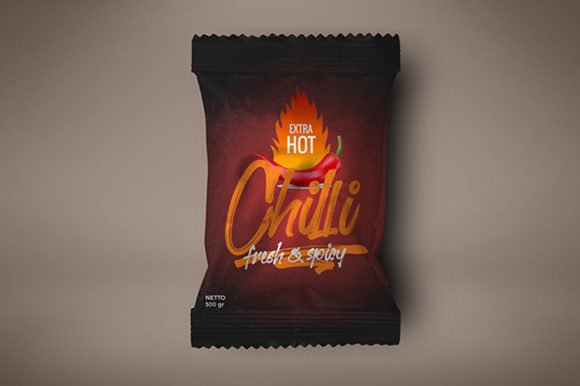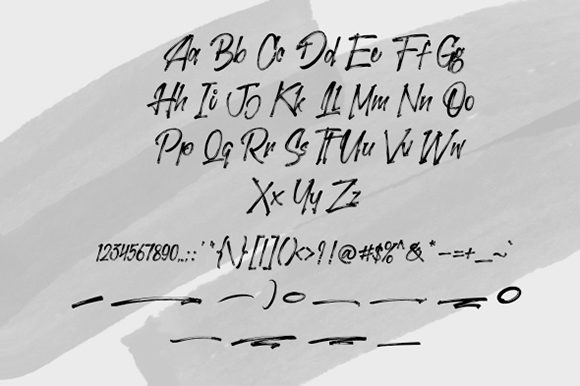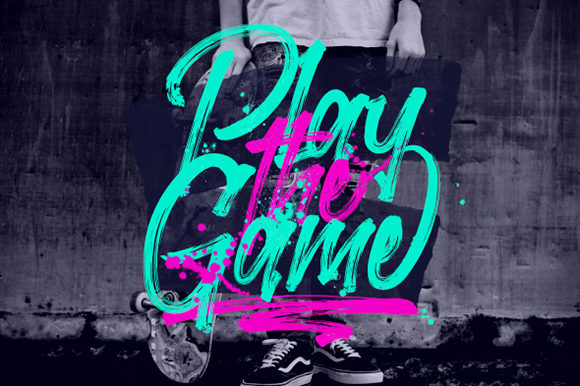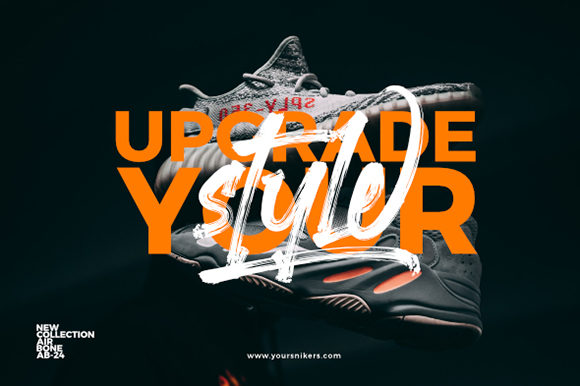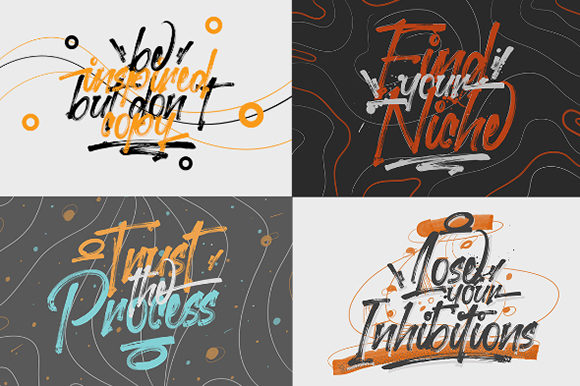
Discover the Timeless Elegance of Cellotype Font
There’s something special about creating a design that feels like it’s been written just for you. Maybe it’s the way the words flow effortlessly across the page, or the way the characters seem to dance with the rhythm of your message. Whatever it is, we know that the right font can make all the difference.
That’s why we’re excited to introduce you to the Cellotype Font, a beautiful, flowing handwritten font that’s perfect for adding a touch of elegance to your projects. With its unique, timeless style, Cellotype Font is the perfect choice for designers who want to create truly spectacular designs that stand out from the crowd.
Whether you’re working on a branding project, a website, or a social media campaign, the Cellotype Font is a valuable addition to any designer’s toolkit. Its distinct style and versatility make it the perfect choice for a wide range of applications, and its elegant touch is sure to leave a lasting impression on your audience.
Cellotype Font Key Features
- Character Set: The font includes a wide range of characters, including Latin, Cyrillic, and Greek alphabets, as well as punctuation marks and symbols.
- Unique Characteristics: The font features a unique blend of modern and vintage elements, with intricate details and ornaments that set it apart from other fonts.
- Font Style: Cellotype Font is available in regular and bold weights, making it suitable for use in a variety of applications, from body text to headings and titles.
Cellotype Font Review
First off, I have to say that Cellotype Font has some amazing qualities that make it stand out. ✨ The subtle texture and subtle irregularities give it a very organic feel that’s perfect for creative projects. It’s also surprisingly versatile and works well in a variety of contexts, from headings to body text.
One of the things I love about Cellotype Font is its unique character set. ✨ The font includes a range of special characters that add a touch of whimsy and personality to any design. The designer has clearly put a lot of thought into creating a font that’s both functional and visually interesting.
- ⚠️ The font may not be suitable for very small text sizes, as the texture can become difficult to read at very small scales.
- ⚠️ Some users may find the font’s irregularities distracting or difficult to read, especially in long blocks of text.
Overall, I’m really impressed with Cellotype Font. It’s a unique and visually interesting font that’s perfect for creative projects. While it may have some limitations, I think it’s definitely worth considering for any designer looking to add some personality to their work.
Cellotype Font is a great choice for creative projects that require a unique and elegant look.
Some common use cases include:
– Wedding invitations and stationery
– Luxury brand logos and packaging
– High-end business cards and letterheads
Remember to use the font in moderation and balance it with other design elements to avoid overwhelming the viewer.